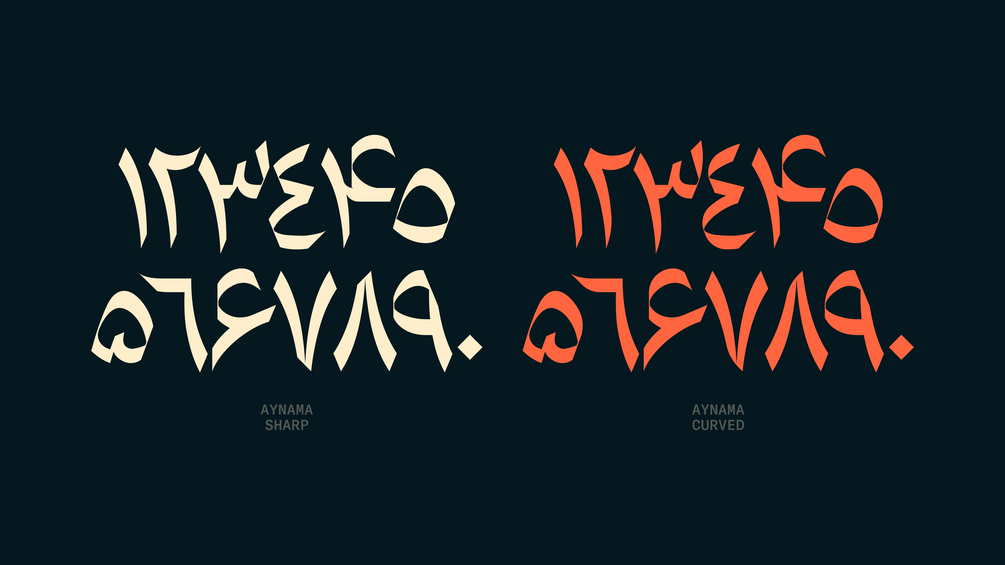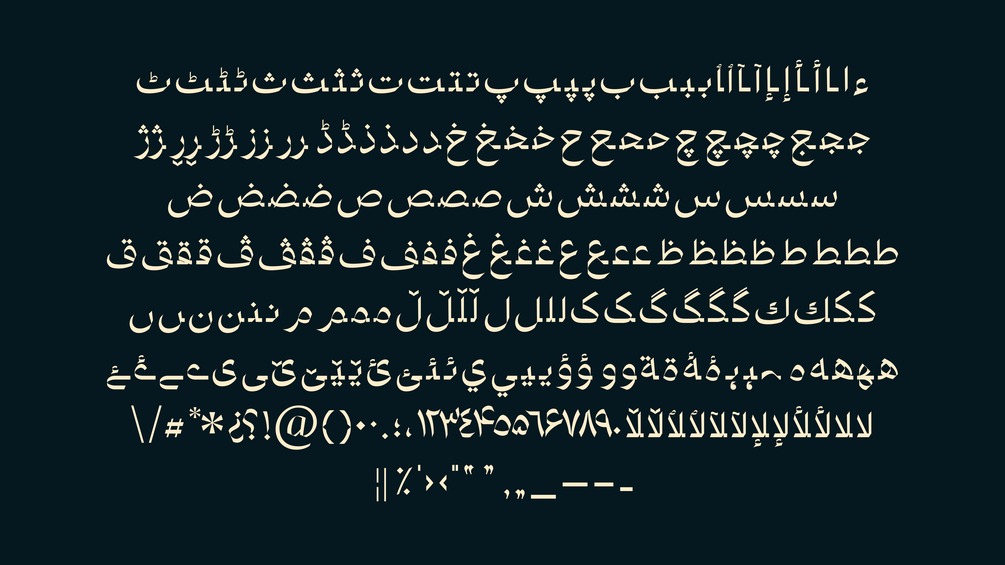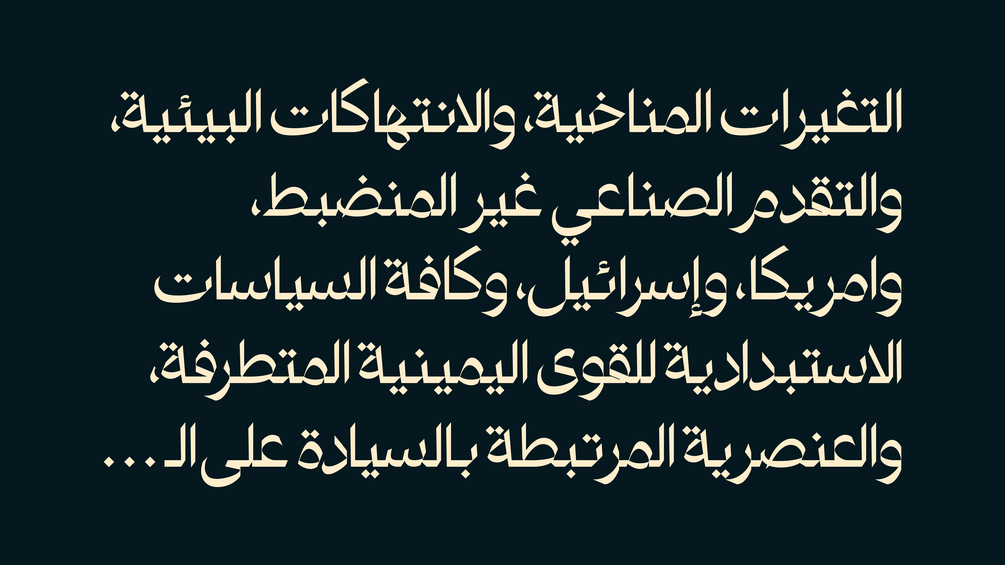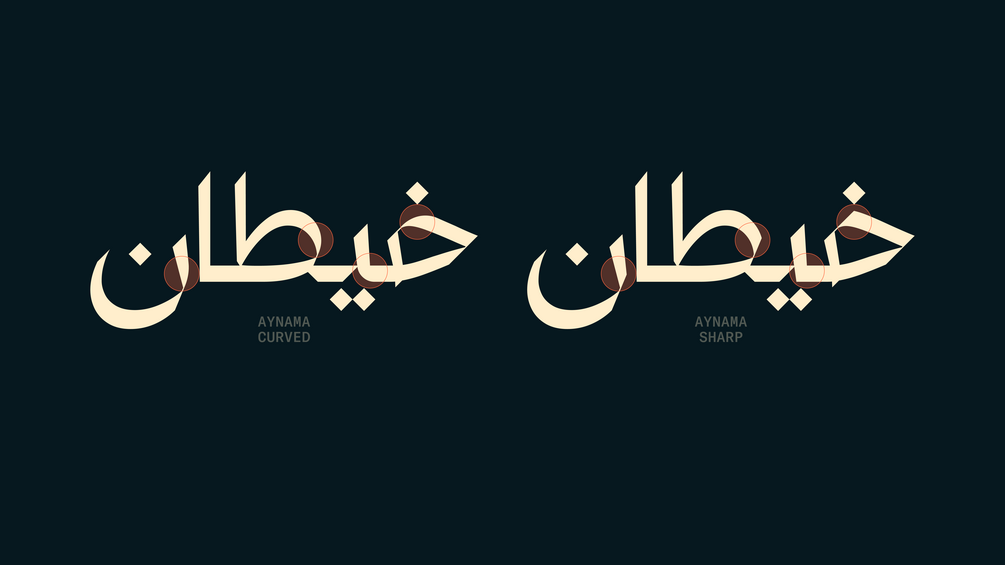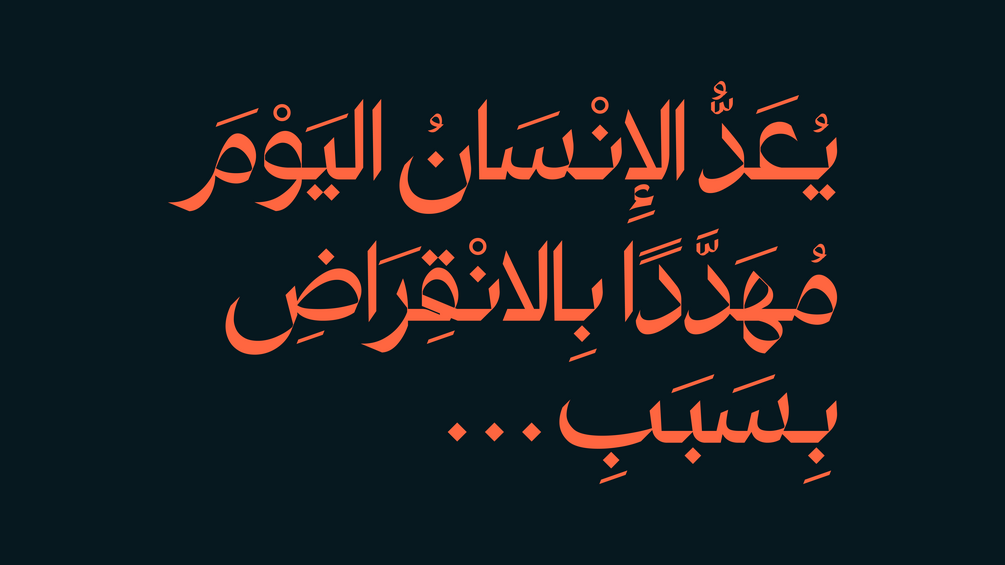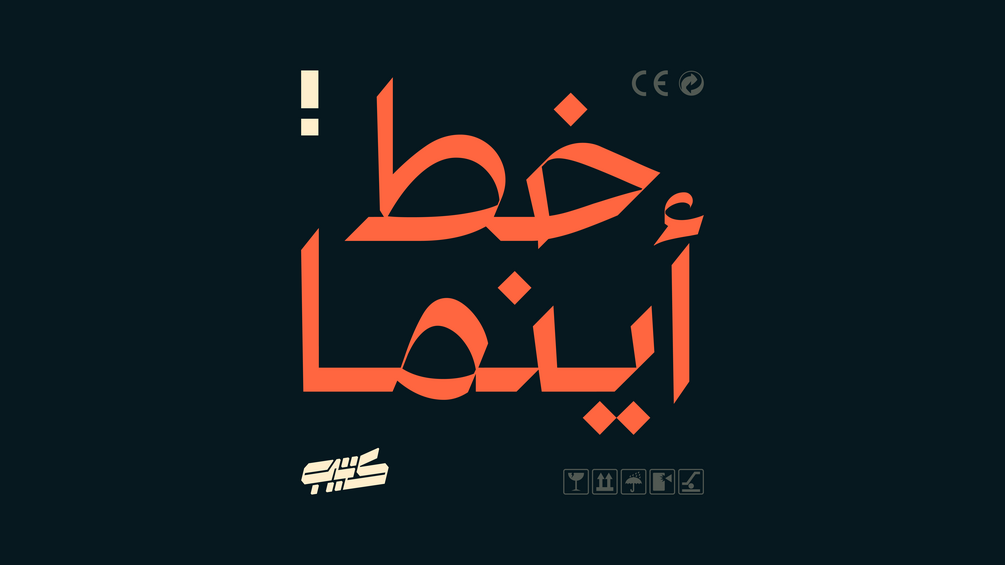
Aynama Typeface
Aynama typeface
Aynama is a free-to-use sharp Arabic typeface blending classical essence with contemporary geometry, available in sharp and curved styles for bold expression or a softer, rhythmic flow.
Arabic typeface
Weights and styles
2 styles
Designer
Hey Porter!
Release
2024
Language Support
Arabic
OpenType Features
Required Ligatures.